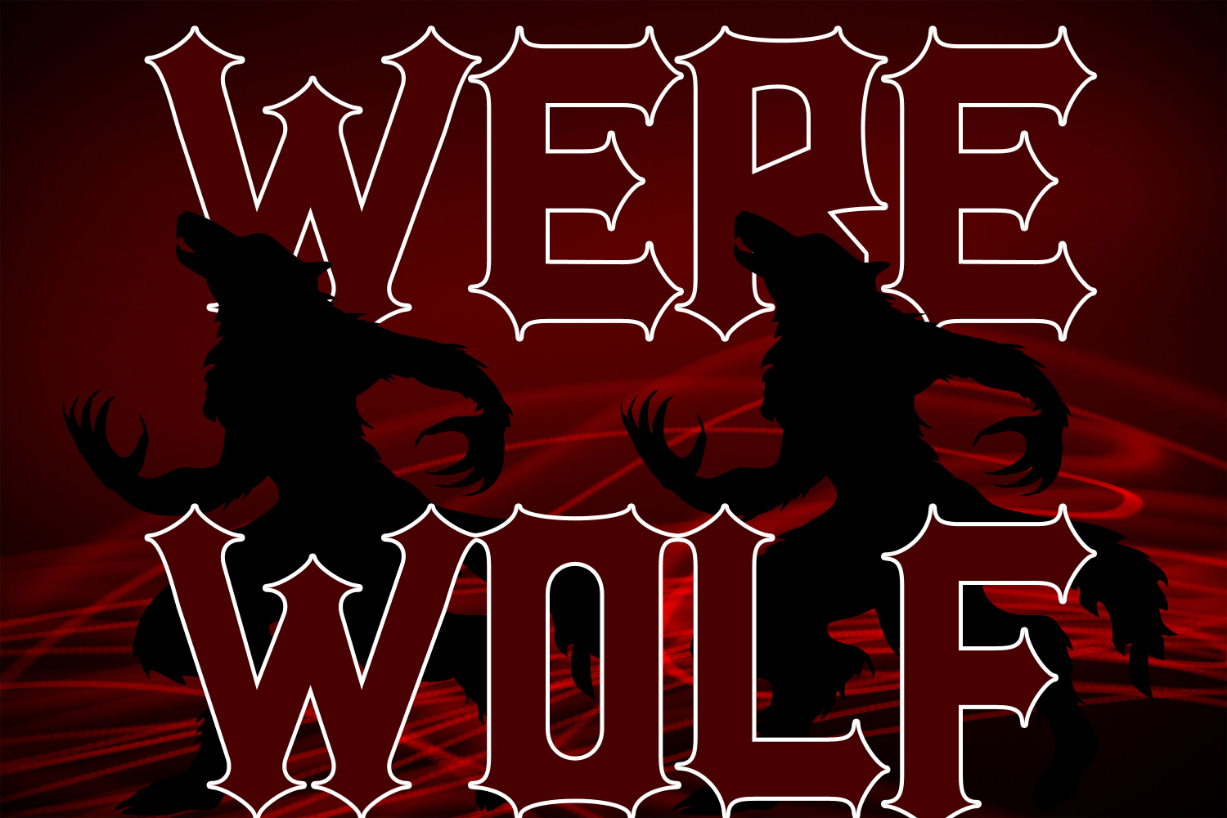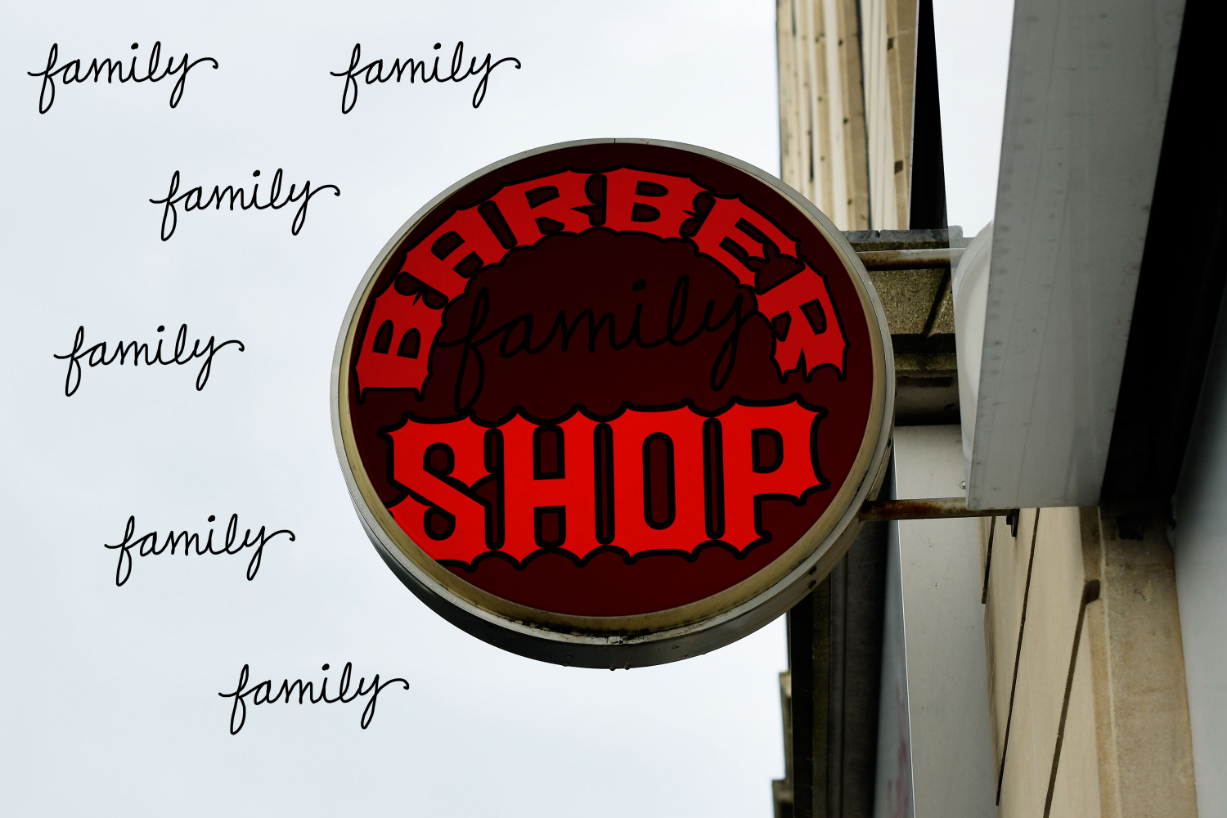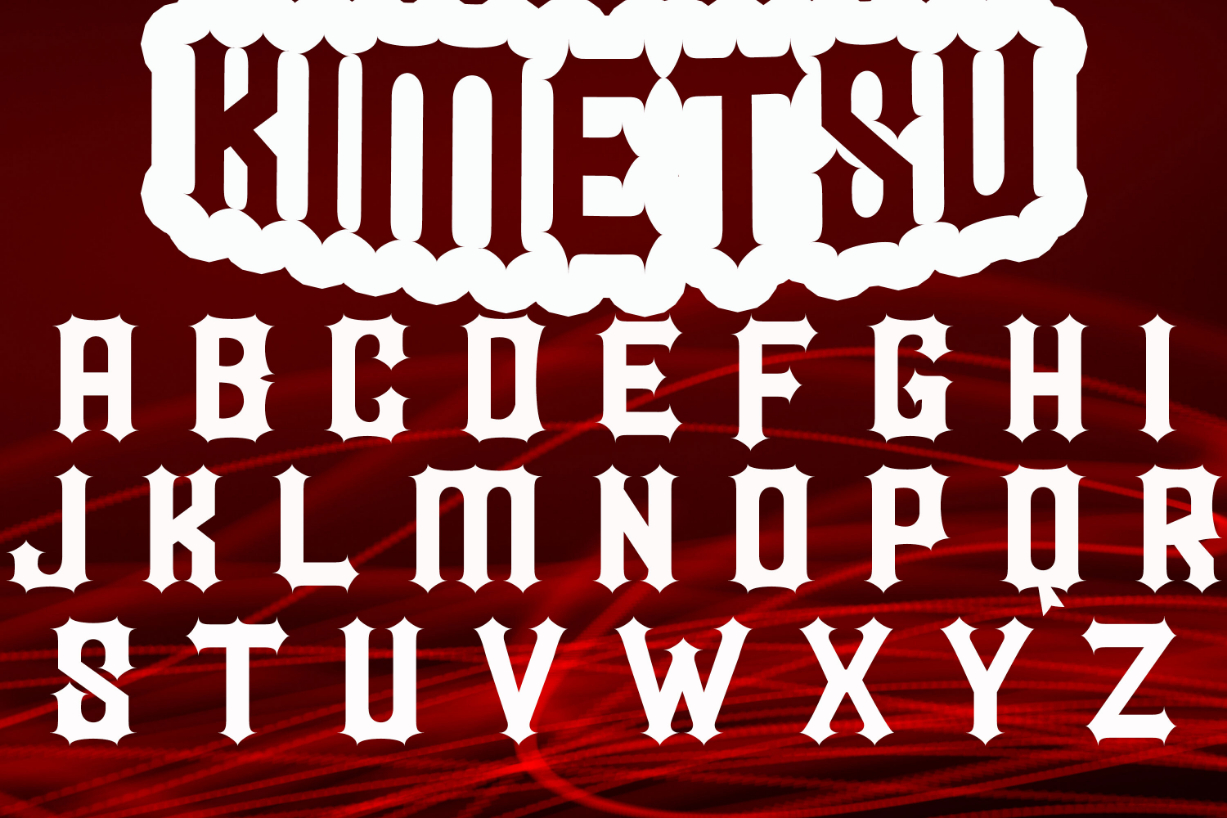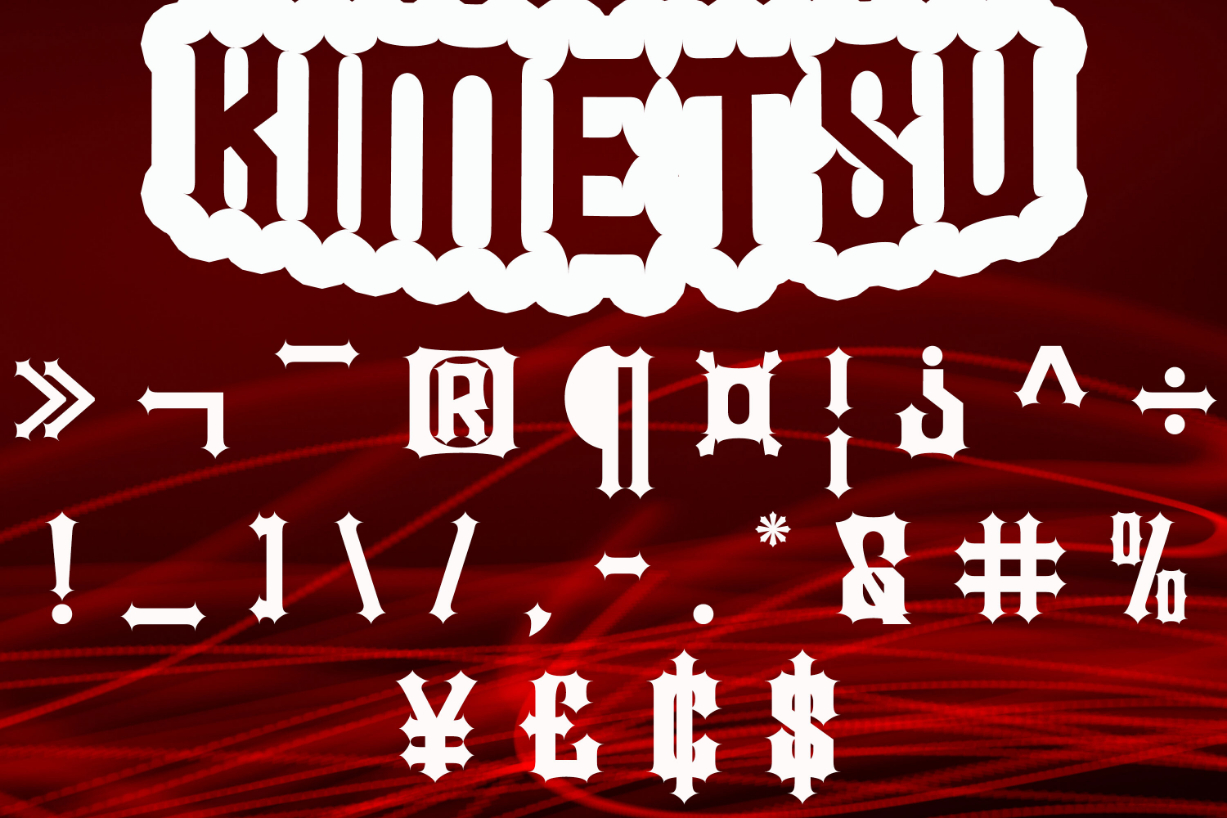
About Kimetsu Font
Introducing “Kimetsu,” a bold blackletter font with striking pointy edges that commands attention. This typeface exudes a sense of strength and tradition, making it perfect for projects that require a touch of medieval or gothic aesthetics. With its sharp and distinctive letterforms, Kimetsu adds an edgy and timeless quality to your designs. Whether you’re working on branding, event posters, or anything that demands a bold statement, let Kimetsu bring a touch of classic elegance with its pointed precision.